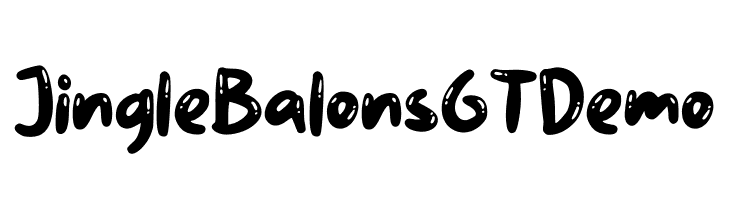
A playful, bold, and bubbly hand-drawn font with whimsical details.
A bold, bubbly, and three-dimensional font with a playful, glossy appearance.
A playful, bold, and bubbly font with a cartoonish style.
A playful, bubbly font with rounded, bold characters and whimsical patterns.
A bold, rounded font with playful and approachable character.